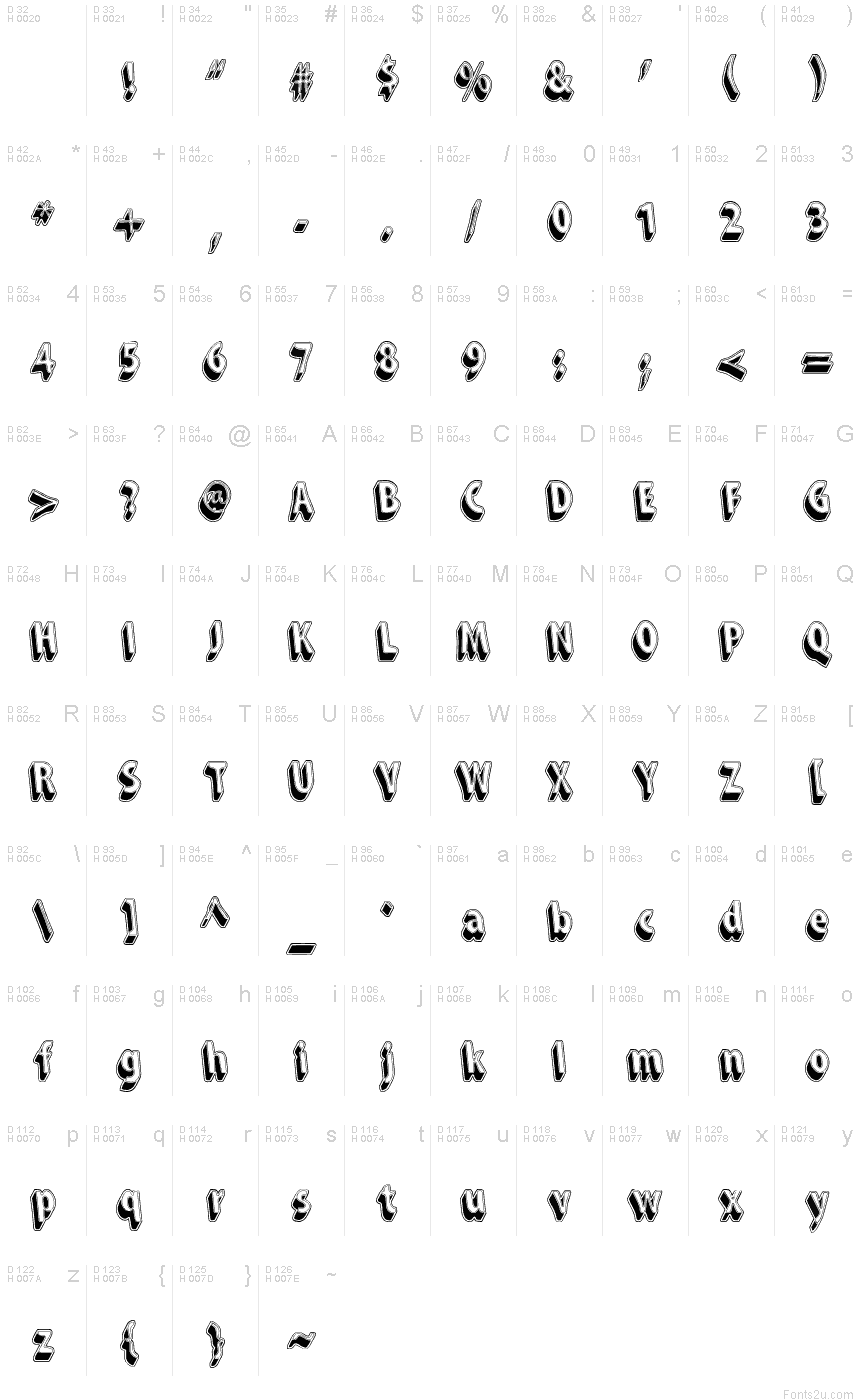
Snarky's Machine by Thomas M. Ledin is a free cartoon display font with chunky, uneven letters and a cut-paper look. Offset inner lines suggest raised faces and deep shadows. The shapes feel hand-drawn and mischievous.
Its layered lettering can echo comic illustration and sticker art on game graphics or children's entertainment. It also suits merchandise and food packaging, where irregular outlines become part of the artwork. For product branding, the dimensional effect turns a name into an illustrated badge.